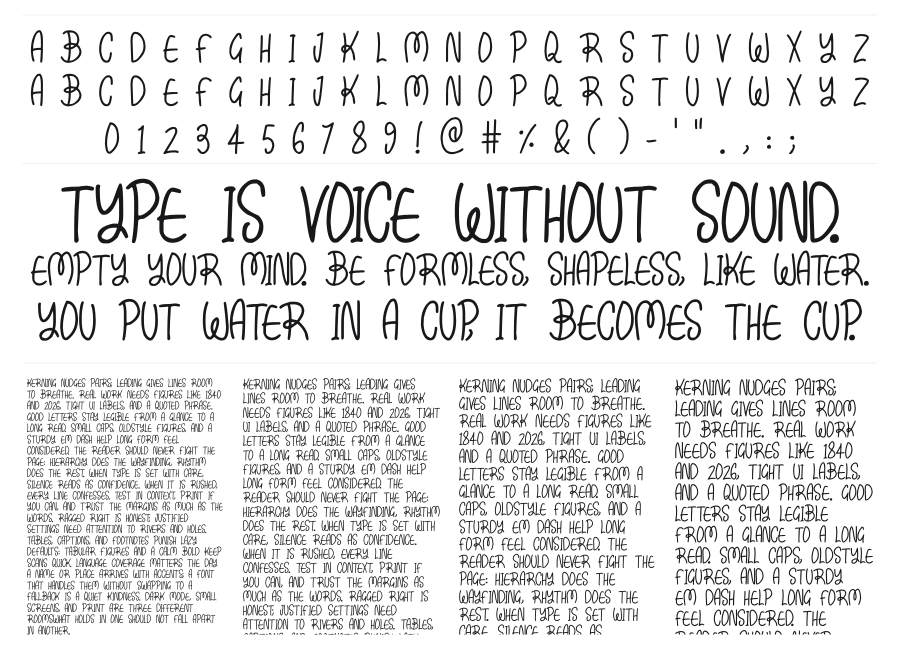
Kissy
by Darrell Flood
Kissy is a thin, playful handwritten face from Darrell Flood with loopy, slightly bouncy letterforms that lean cute and feminine without overdoing it. The strokes stay light and casual, with enough quirky character in the curves to feel like someone's actual handwriting rather than a generic script. Best for invitations, greeting cards, social media graphics, and personal branding where you want something warm and decorative but still readable.